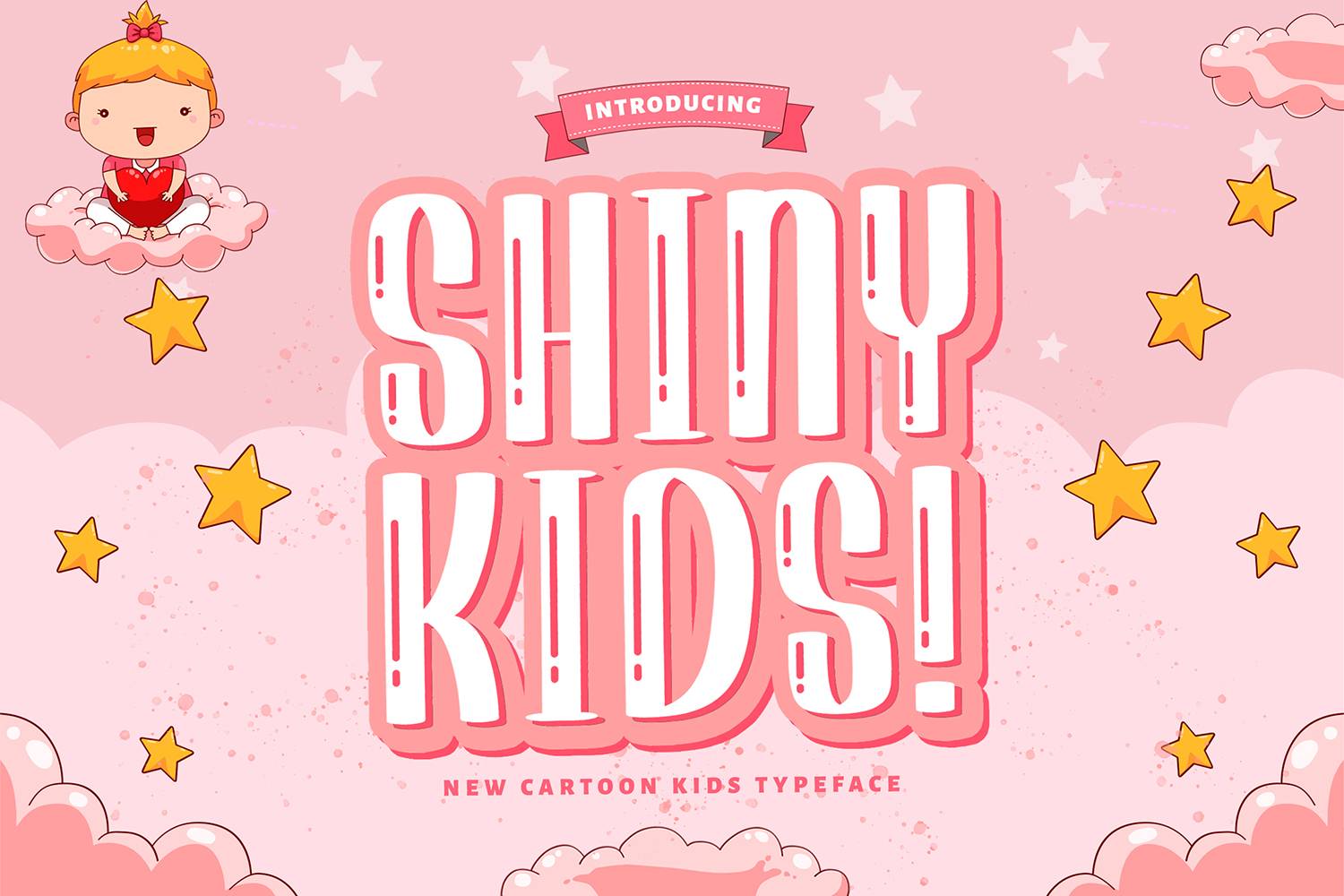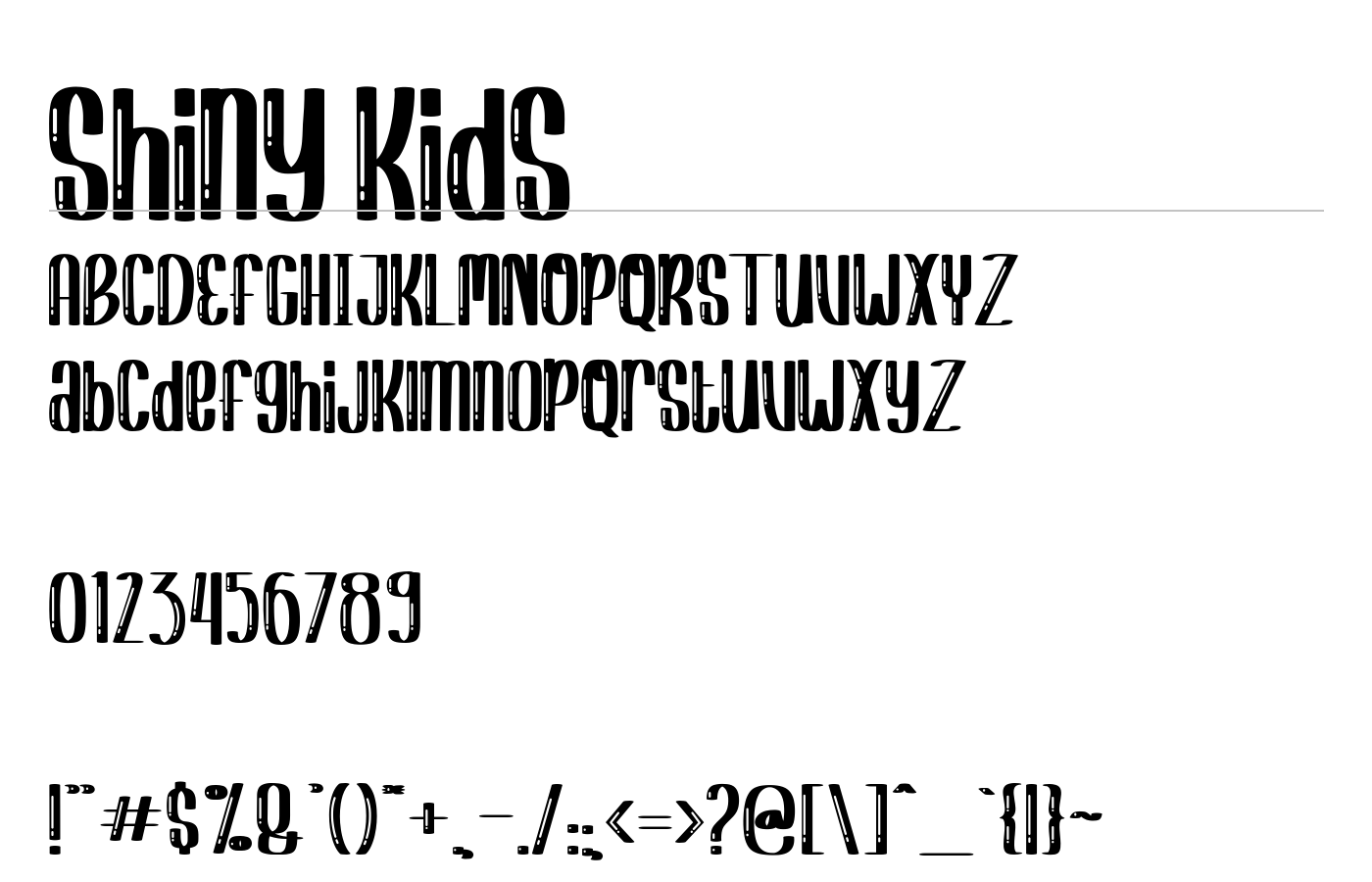
Shiny Kids is a playful and narrow sans serif font with a tall x-height and moderate stroke contrast, featuring quirky, condensed letterforms that create a fun and energetic vibe. Its unique irregular shapes and subtle decorative dots make it perfect for children’s brands, posters, and creative projects that need a lively, eye-catching style. This font works well in headlines and display settings where its whimsical personality can shine.
Shiny Kids Font
About Shiny Kids Font